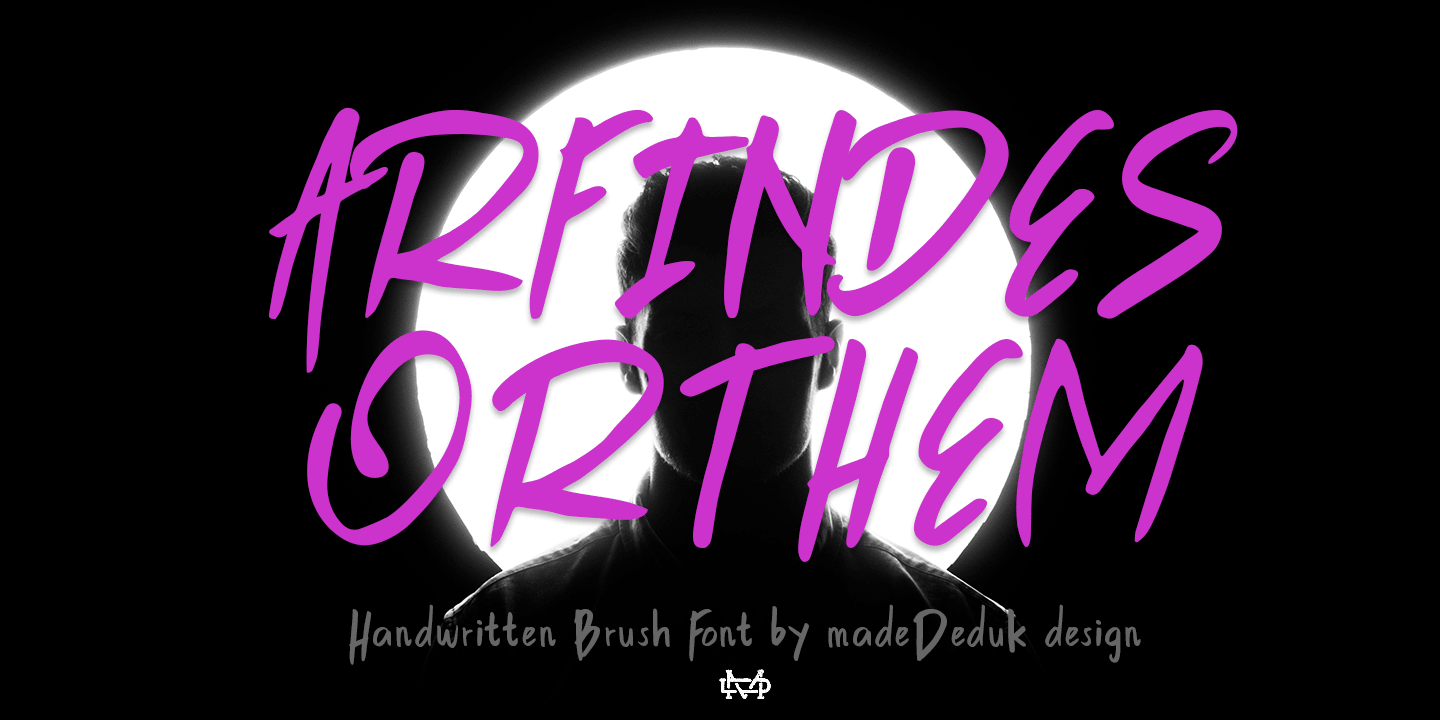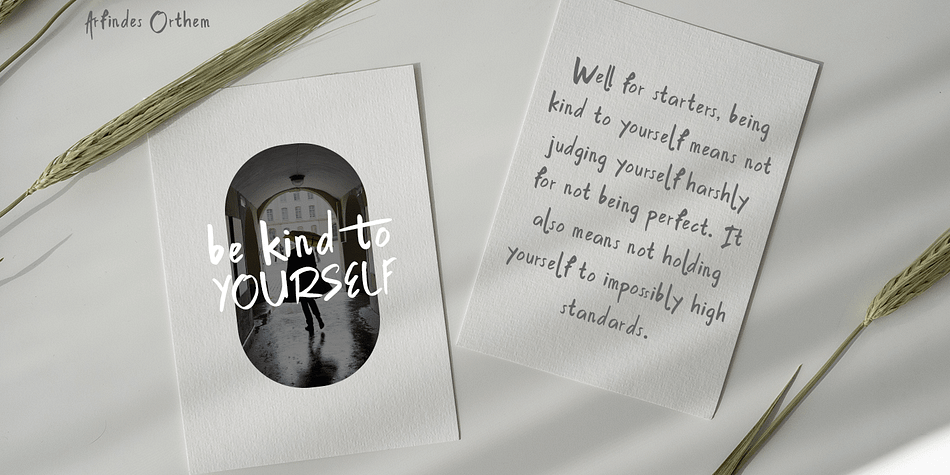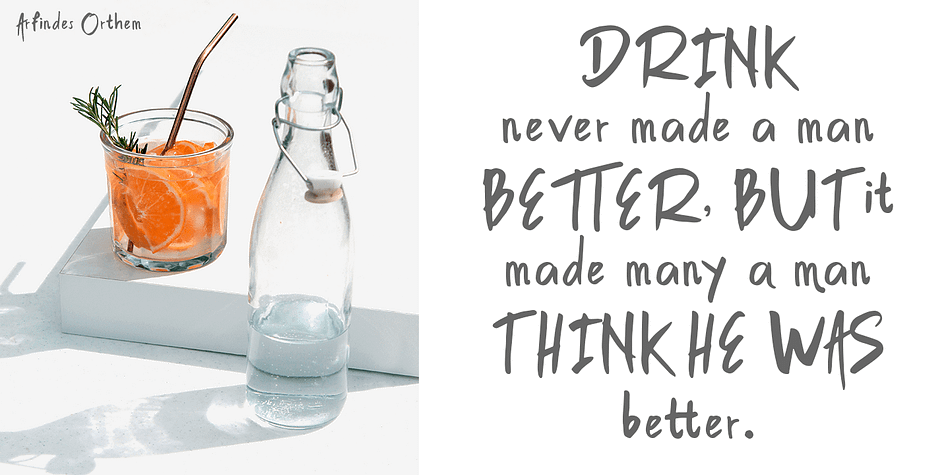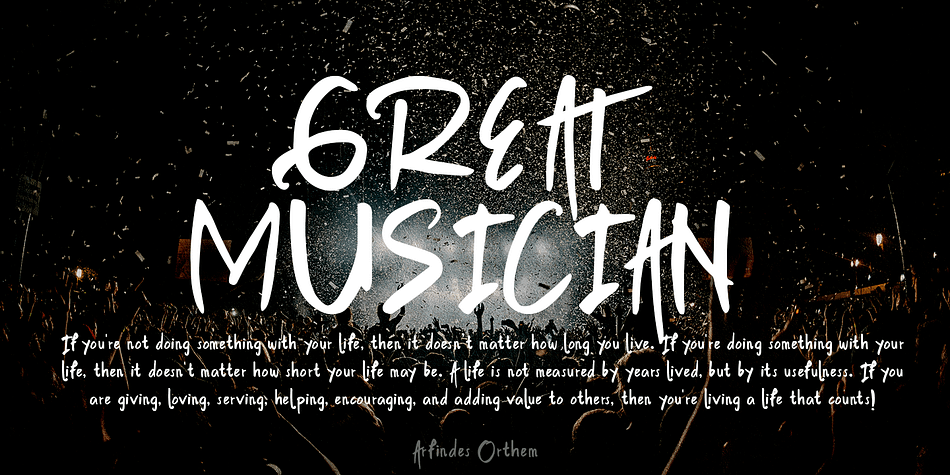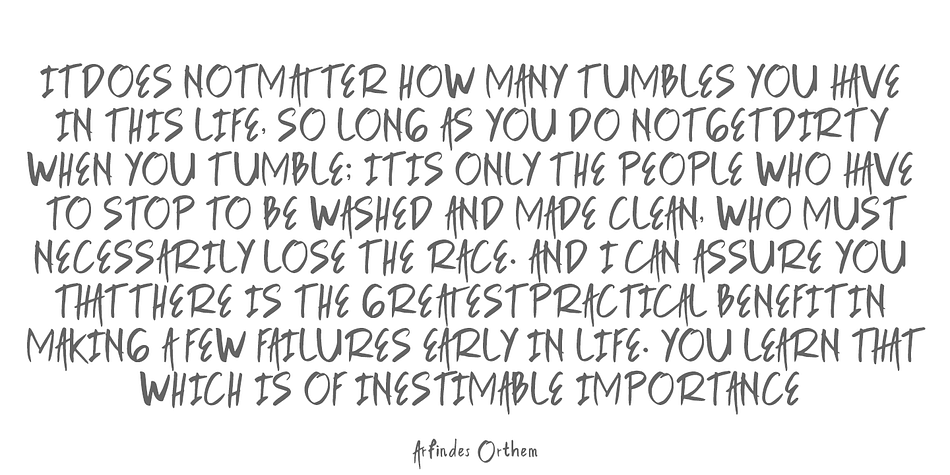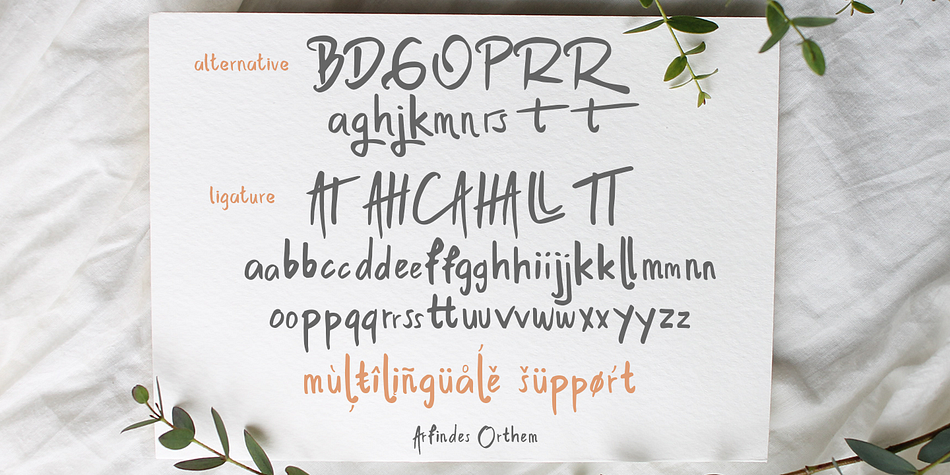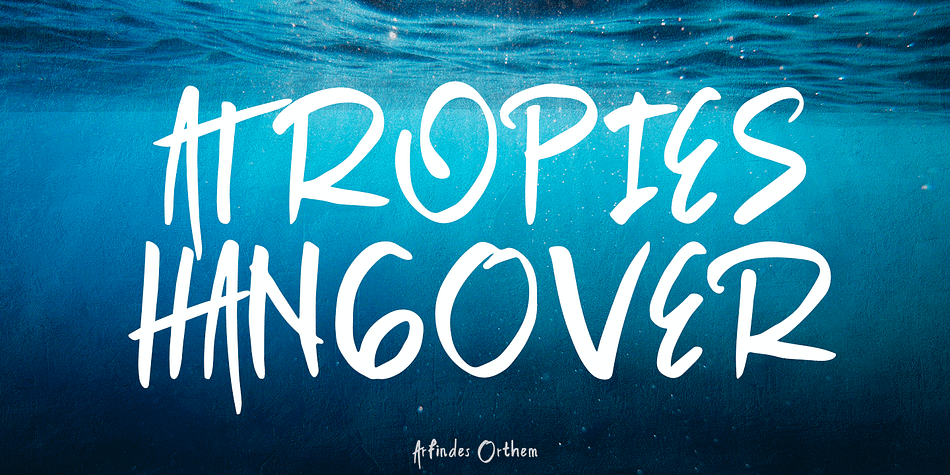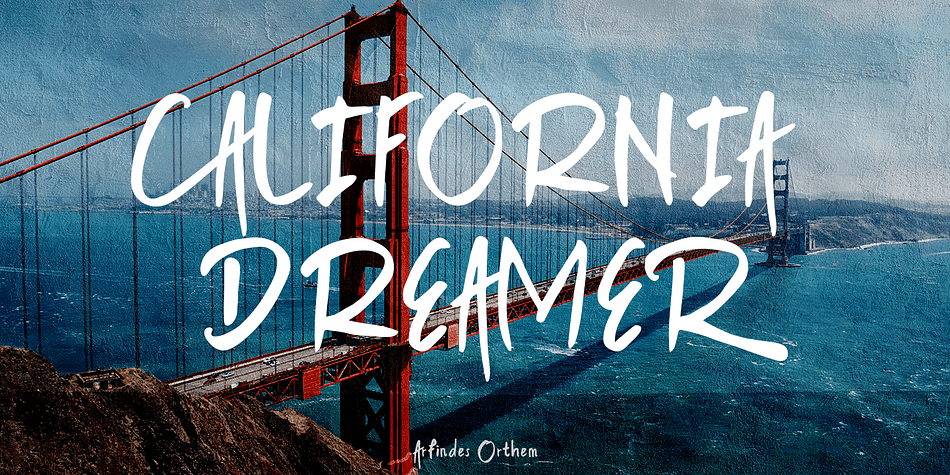
Arfindes Orthem
Designed by Suandana Ipandemade, Arfindes Orthem is a hand drawn font family. This typeface has two styles and was published by madeDeduk.
Introducing Arfindes Orthem is a brush handwritten font and will be perfect for all your project design book, title branding, product packaging, invitation, quotes, label, poster, logo etc.
- Alternative
- Ligature